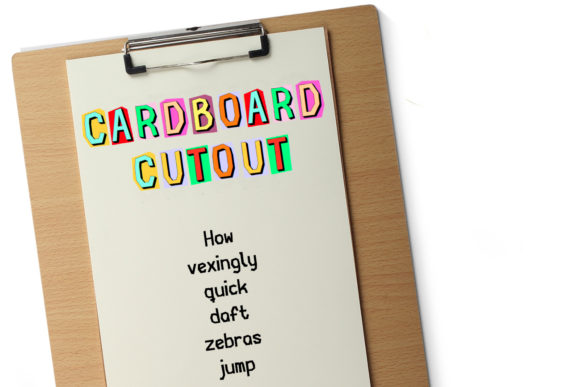
Where Creativity Meets Geometry: The Cardboard Cutout Font
Have you ever found yourself staring at a blank page, trying to spark a new idea? That’s exactly what happened to me the other day. I was doodling with some shapes in my favorite design app, and suddenly, a fun little font started to take shape. It was made using nothing but rectangles and boolean operations – the perfect combination of simplicity and creativity.
This is the Cardboard Cutout Font, a unique typographic creation that’s all about embracing the beauty of basic shapes. Its purpose is to add a touch of playfulness to your designs, making it perfect for projects where you want to break the mold (pun intended!). For designers, this font is a valuable tool for adding visual interest and creating a memorable visual identity.
Key Features of Cardboard Cutout Font
- Unique Hand-Drawn Style: The Cardboard Cutout Font features a distinctive, hand-drawn design with a playful, retro aesthetic.
- Character Count: The font includes a comprehensive set of characters, including uppercase and lowercase letters, numerals, punctuation marks, and special characters.
- Customizable: The Cardboard Cutout Font allows for advanced typographic control, including ligatures, fractions, and swashes, making it suitable for a wide range of design applications.
Cardboard Cutout Font Review
Overall, I’m really impressed with the Cardboard Cutout Font. Here are some of the things I like about it:
- ✨ Unique aesthetic: The font’s cardboard cutout style gives it a quirky, playful feel that’s perfect for creative projects or campaigns that need a bit of whimsy.
- ✨ Versatility: Despite its unusual style, the font is surprisingly versatile and can be used in a variety of contexts, from posters and flyers to digital designs and even branding.
- ⚠️ Limited legibility: While the font is fun and playful, it can be difficult to read in certain contexts, especially at small sizes or in dense text.
- ⚠️ Limited customization options: The font’s unique style can make it tricky to customize or edit, which may limit its usefulness for certain projects.
Overall, I’d say the Cardboard Cutout Font is a great choice for designers looking to add some personality to their projects. While it may not be suitable for every context, its unique style and versatility make it a great option for creative projects and campaigns.
The Cardboard Cutout Font is commonly used for creative projects, such as:
1. Social media graphics
2. Posters and flyers
3. Magazine and newspaper layouts
4. Infographics and data visualizations
Tips for Getting the Most Out of Cardboard Cutout Font
Here are some tips for getting the most out of the Cardboard Cutout Font:
1. Experiment with different font sizes and colors to create visual interest.
2. Use the font in combination with other creative elements, such as images and shapes.
3. Adjust the font settings to create a distressed
Alternatives to Cardboard Cutout Font
Hand-Drawn Font
A hand-drawn font is a custom-made font that mimics the look of handwriting. It’s perfect for designs that require a personal touch, such as invitations, posters, or social media graphics. When to use: For designs that need a human, organic feel. Compared to Cardboard Cutout Font: Hand-drawn fonts are more personal and can add a unique touch to designs, but they may require more time and effort to create.